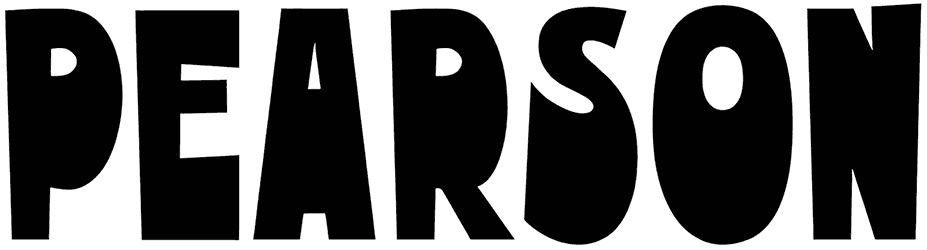
Pearson Font
Who says cartoons are only for kids and we’re too grown up to be entertained by something so apart from reality? Have they seen Pearson before they say that? It’s just impossible to remember what age you are when you’re sunken back into your childhood by looking at this cartoon font.
So we’re not here to tell you to pick Pearson for your next project. We’re here to show you how to design better gaming graphics, baby apparel, summer posters, etc.
Pearson is a tall display font, carefully handcrafted to become a true favorite.
Its casual charm makes it appear wonderful down-to-earth, readable, ultimate, and versatile.